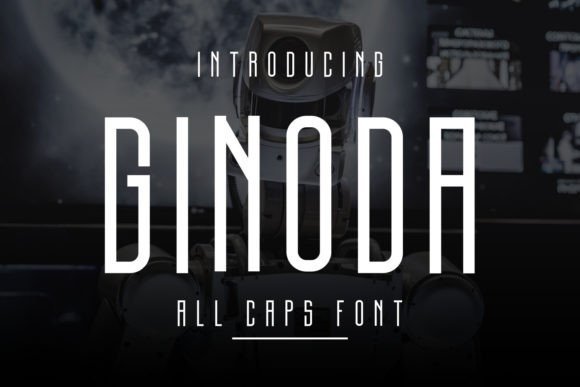
Enter the Ginoda Font, a cool and unique sans serif font that’s sure to elevate your next project. This meticulously crafted font is a valuable asset to any designer’s library, offering a level of detail and sophistication that’s hard to find elsewhere. Whether you’re working on a marketing campaign, a logo design, or a digital publication, the Ginoda Font has the potential to take your creations to the next level.
So why is the Ginoda Font such a valuable addition to your font library? For starters, its versatility makes it perfect for a wide range of applications, from body text to headlines. Its clean lines and modern aesthetic also make it a great choice for designers who want to create a cohesive and professional look.
Ginoda Font Key Features
- Font Family: Ginoda is a sans-serif font family, designed for clear and modern typography.
- Character Set: The font family includes a wide range of characters, including Latin, Cyrillic, and Greek alphabets, as well as punctuation and symbols.
- Unique Characteristics: Ginoda Font features a distinctive geometric shape and clean lines, making it ideal for modern and minimalist designs. Its x-height is optimized for clear readability, and the font’s weight range allows for flexibility in typography.
Ginoda Font Review
Overall, I found the Ginoda font to be quite an interesting addition to any design project. Here’s a breakdown of what I liked and didn’t like about it.
- Unique Aesthetic: The Ginoda font has a distinctive, futuristic feel to it. It’s perfect for projects that require a touch of sci-fi or tech-inspired design.
- Highly Legible: The font’s clean lines and well-spaced characters make it easy to read, even at smaller font sizes.
- Customization Options: The Ginoda font offers a range of weights and styles, giving designers plenty of room to experiment and find the perfect look for their project.
- Overuse: While the Ginoda font is unique, it may be overused in certain design communities. Be cautious not to use it too liberally, as it may start to feel cliché.
- Limited Context: The font may not be the best choice for projects that require a more traditional or classic look. Its futuristic feel may clash with more conservative design elements.
The Ginoda font is a solid choice for designers looking to add a touch of futurism to their project. While it may have some limitations, its unique aesthetic and high legibility make it a great option for the right type of design.
Tips for Getting the Most Out of Ginoda Font
Use Ginoda Font for creative projects that require a unique and elegant touch. It pairs well with minimalist designs and is perfect for headings and titles.
Experiment with different font sizes and styles to create visual interest and hierarchy in your design.
Ginoda Font is commonly used for:
- Book covers and interior design
- Marketing materials and advertising